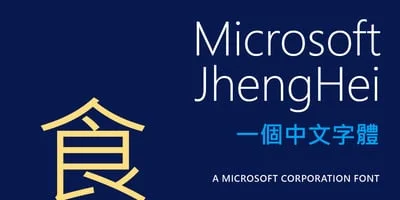
Microsoft JhengHei TC Font
The Microsoft JhengHei TC Font is a clean, modern, and highly legible sans-serif typeface, specifically designed to provide optimal readability for Traditional Chinese characters in digital environments, particularly within Microsoft operating systems. Imagine its clear, efficient forms providing a consistent and robust foundation for sophisticated corporate branding in Chinese-speaking markets, ensuring seamless readability across complex digital interfaces, and offering a reliable backbone for responsive web designs. It's an excellent choice for detailed editorial layouts, professional reports, educational materials, and any digital or print content where pristine clarity, efficiency, and broad linguistic support are paramount. Microsoft JhengHei TC Font excels in delivering a modern, uncluttered, and visually appealing experience across diverse platforms and languages, solidifying your message with cutting-edge precision and universal appeal.
What makes Microsoft JhengHei TC Font so exciting is its meticulous design for the intricate characters of Traditional Chinese while maintaining a contemporary, open aesthetic that is familiar to users of Western sans-serifs. This careful balance ensures excellent readability for a large and complex character set, making it indispensable for global communication and software localization. It’s more than just a typeface; it’s a foundational element for consistent and effective cross-cultural digital experiences. This font empowers content creators and developers to present information with a level of clarity and sophistication that bridges linguistic divides, making it an invaluable asset for anyone working with Traditional Chinese text. For seamless integration into global digital platforms, explore the Microsoft JhengHei TC Font.
The Microsoft JhengHei TC Font family is typically comprehensive, offering a versatile range of weights and styles to provide extensive typographic control. Beyond the core Microsoft JhengHei TC Regular, the family often includes weights such as Microsoft JhengHei TC Light for a delicate touch, Microsoft JhengHei TC Bold for strong emphasis, and Microsoft JhengHei TC UI (User Interface) versions specifically optimized for on-screen display in user interfaces. As a system font, it is designed for maximum clarity and consistency across various text sizes and display resolutions. It comes with an extensive character set that fully supports Traditional Chinese, as well as providing compatibility with Latin, Cyrillic, and Greek scripts, ensuring harmonious integration in multilingual documents. These diverse family members provide designers with the flexibility to establish a clear typographic hierarchy and maintain a consistent, powerful, and universally appealing aesthetic across all elements of a project.